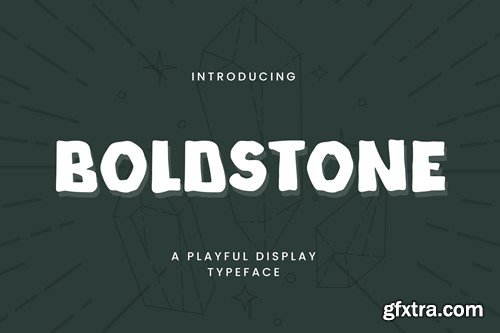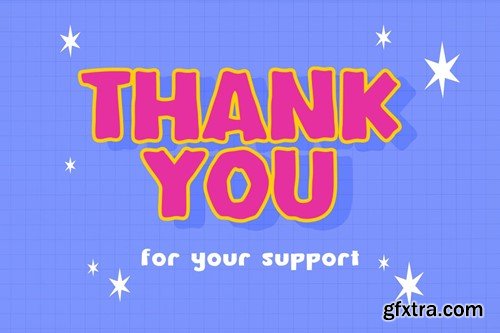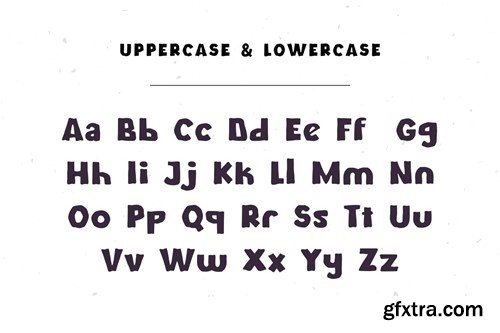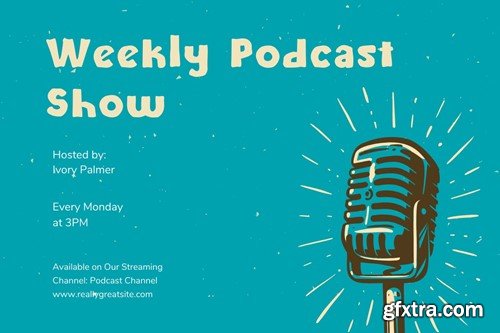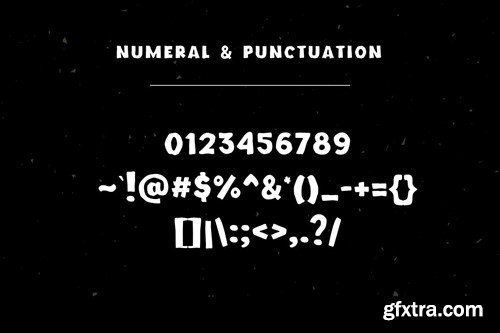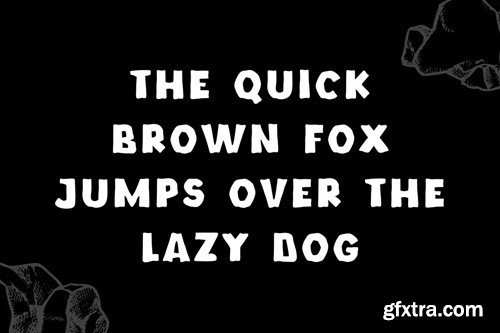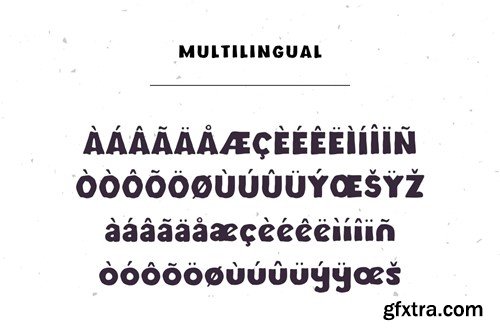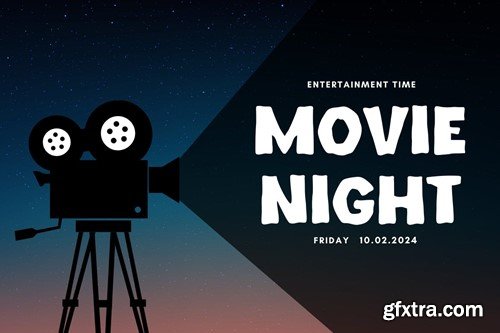
Boldstone - 一款 playful 显示字体 BDDRQQX
Boldstone - A Playful Display Typeface Elevate your creative projects with Boldstone, a vibrant and dynamic display typeface designed to inject playful exuberance into every design. Whether you're working on branding, packaging, posters, or social media graphics, Boldstone's whimsical charm and bold strokes are sure to captivate your audience. The playful essence of this typeface makes it an excellent choice for projects targeting a youthful and lively audience. Unleash your imagination as Boldstone brings a sense of fun and spontaneity to your designs. Each character is crafted with precision, offering a balance between creativity and readability. Stand out from the crowd with a typeface that embodies the spirit of joy and creativity. From headlines to logos, Boldstone adds a touch of playfulness to your visual storytelling. What’s Included : Thank you